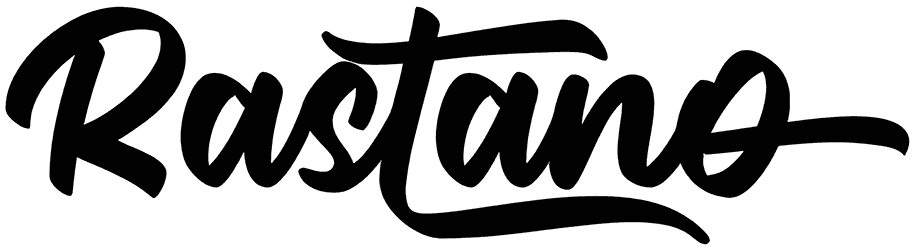
Rastano Font
You can always count on a modern and casual handwritten font such as this one to create a cool design. Rastano font supports full letters, and it will give you freedom to use it for different projects like a skateboard design, a fashion business card, or so forth. Set this cursive font on your new layout and show off your unique taste.